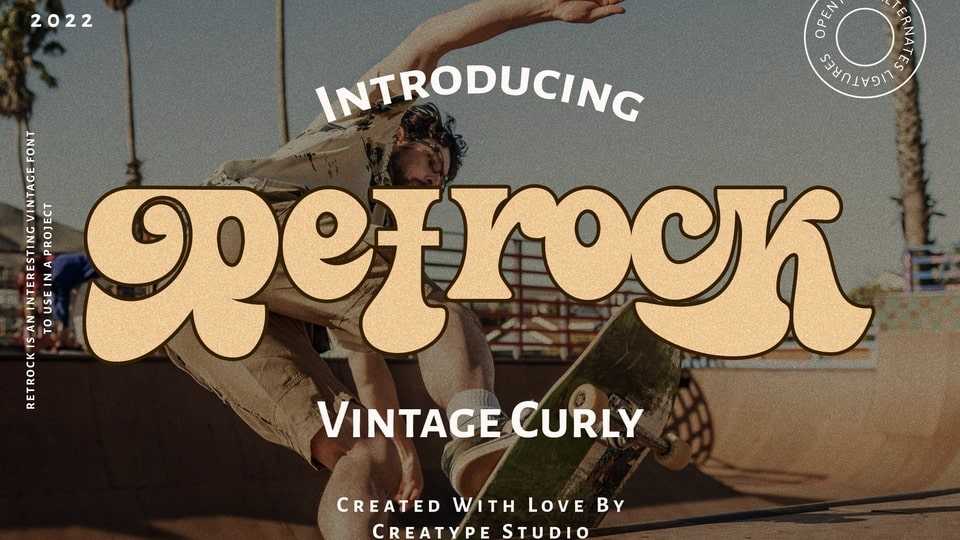
Download Retrock font, a unregular retro typeface that has groovy vibes. Curvy and spread tails could make Retrock suitable for many retro branding styles as well.